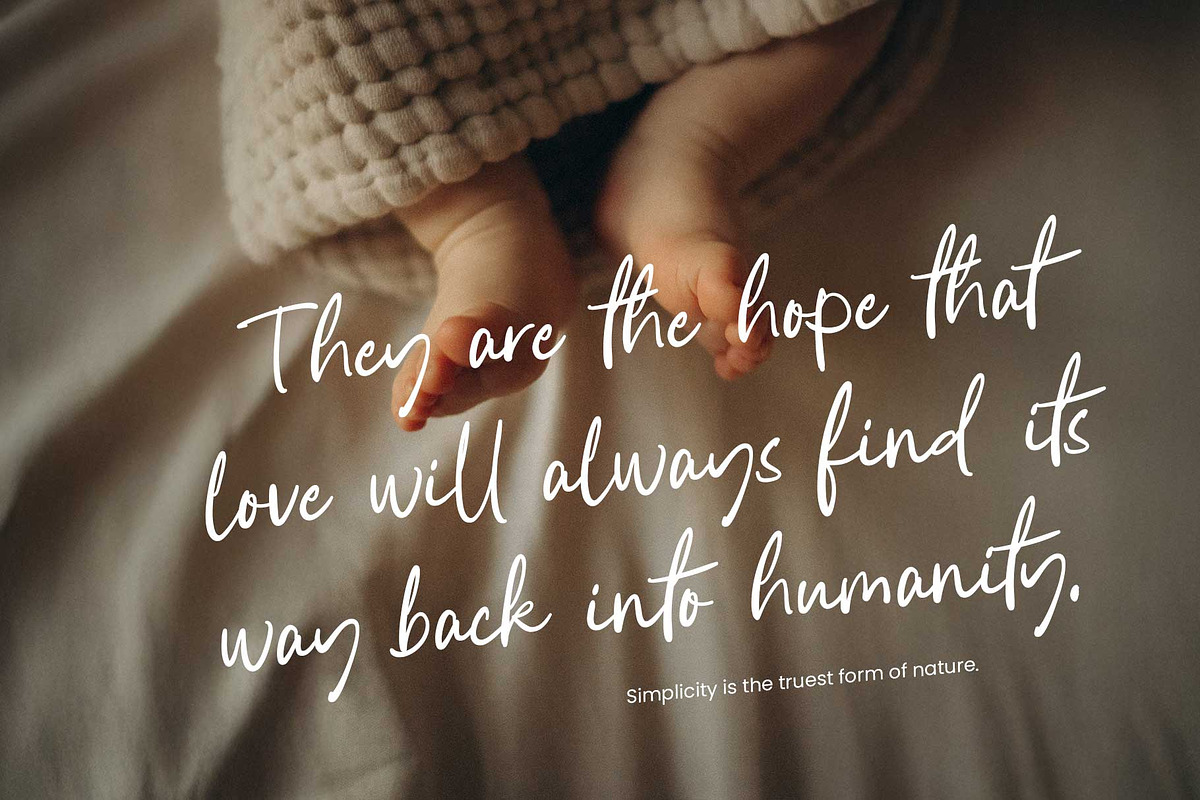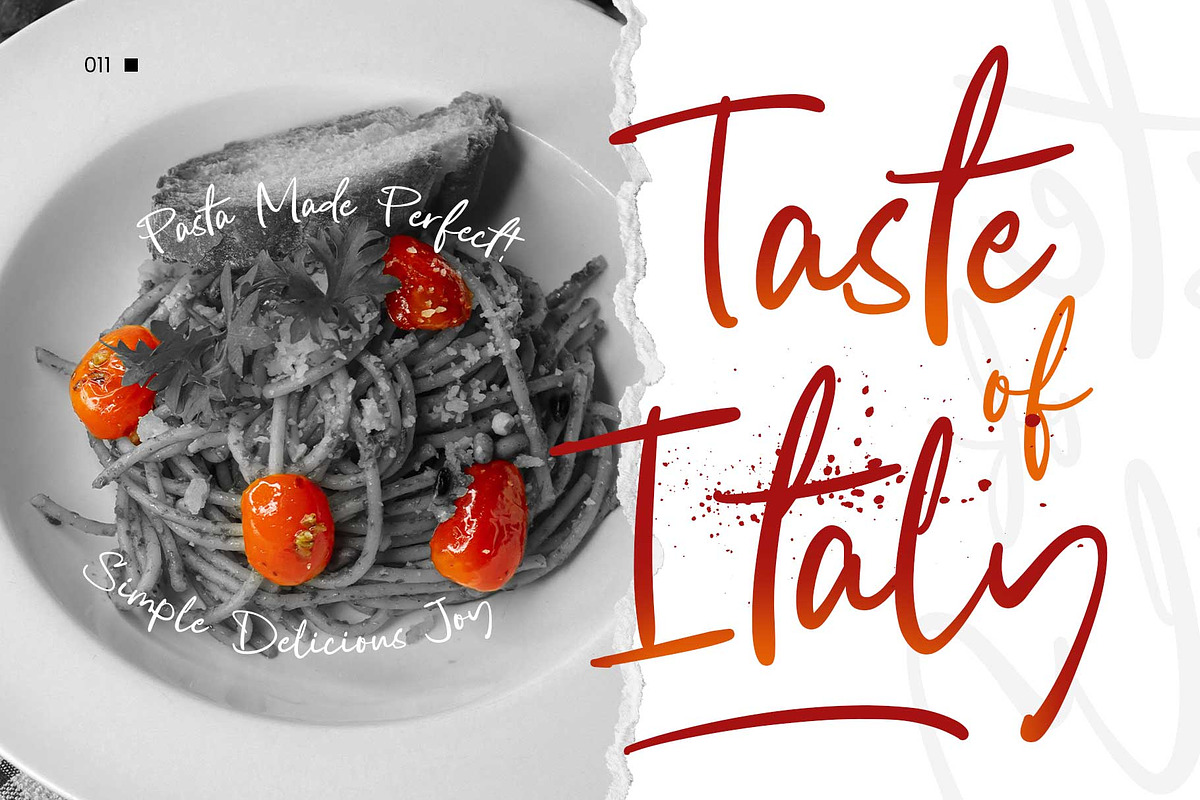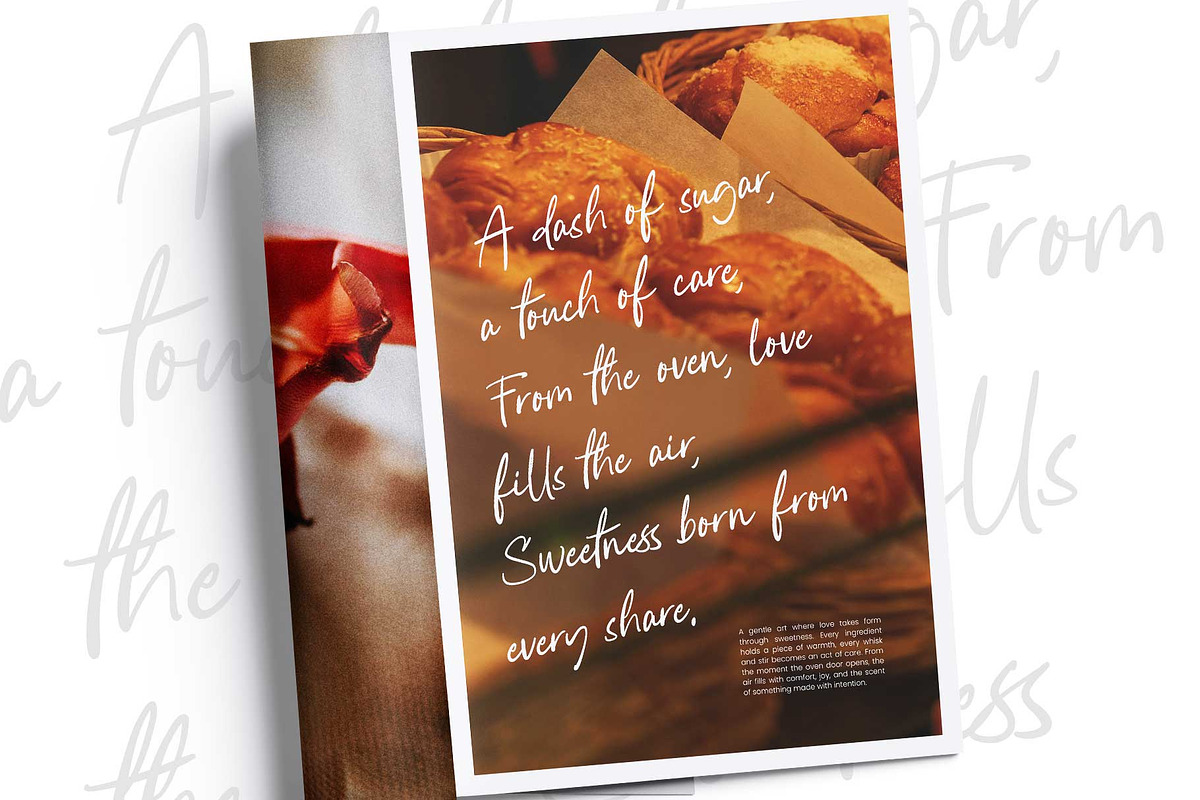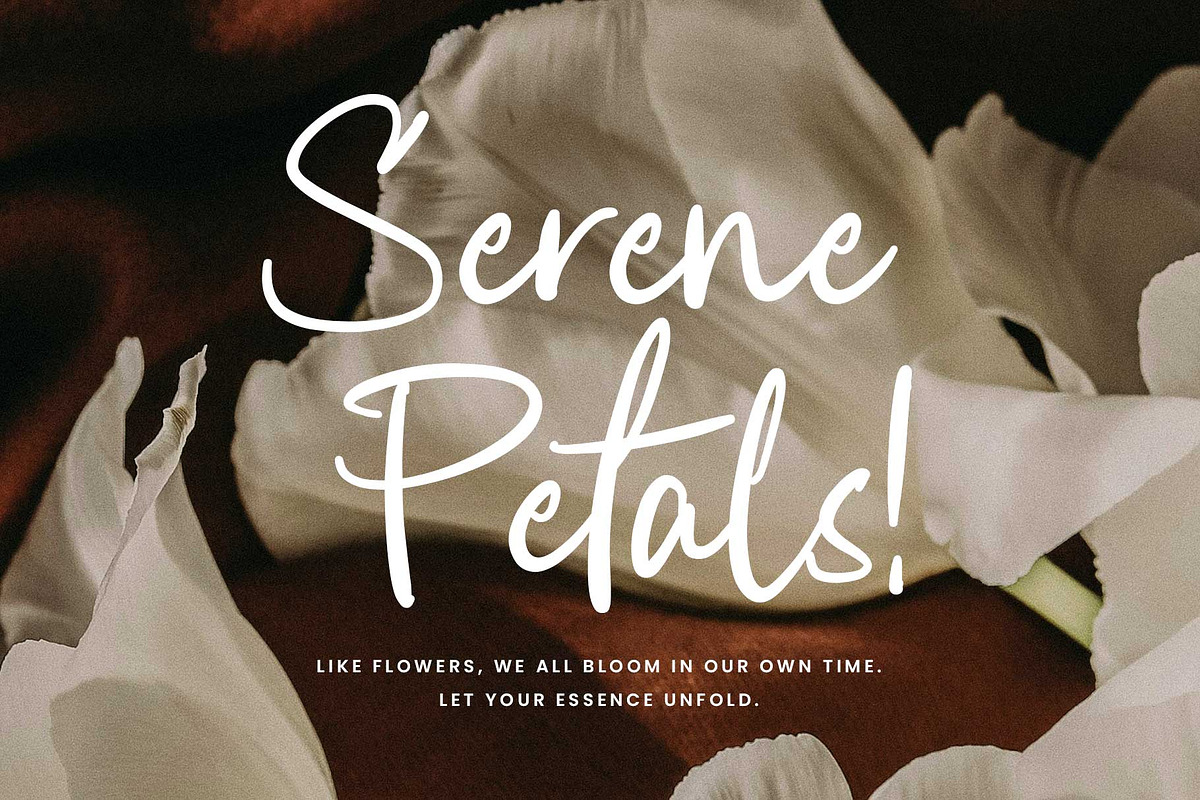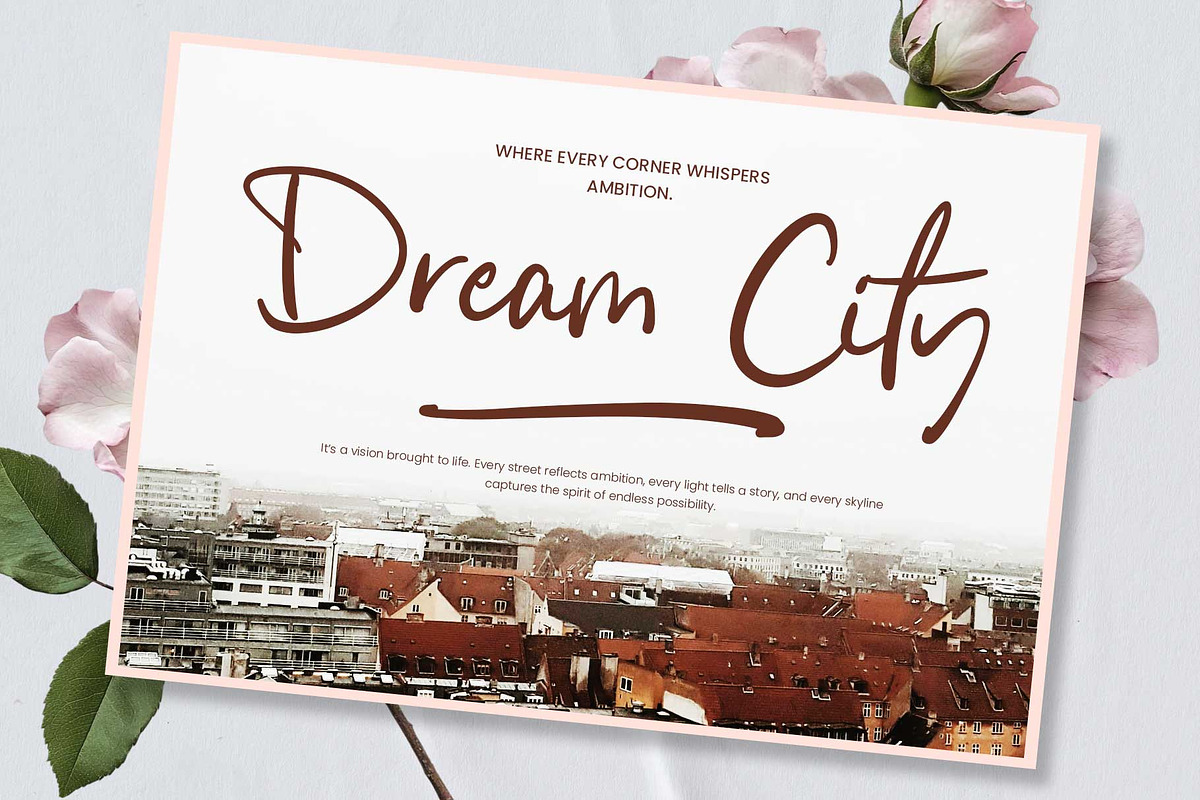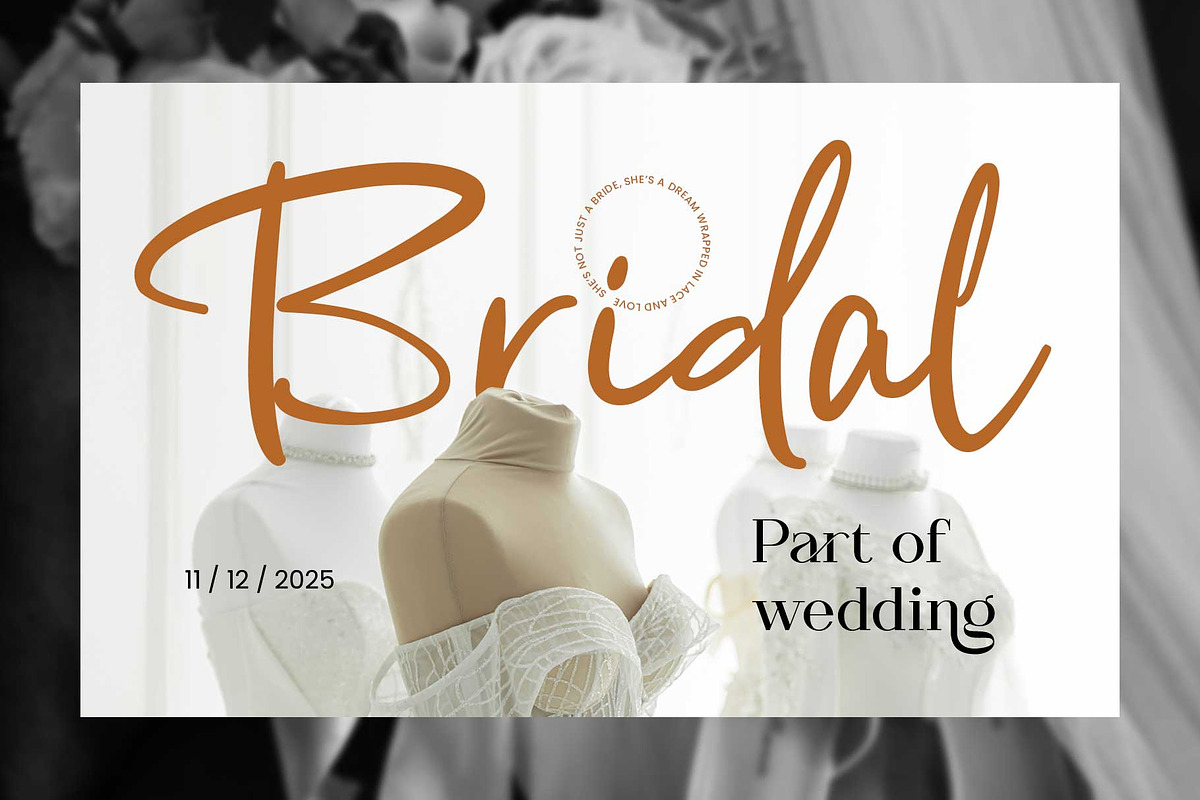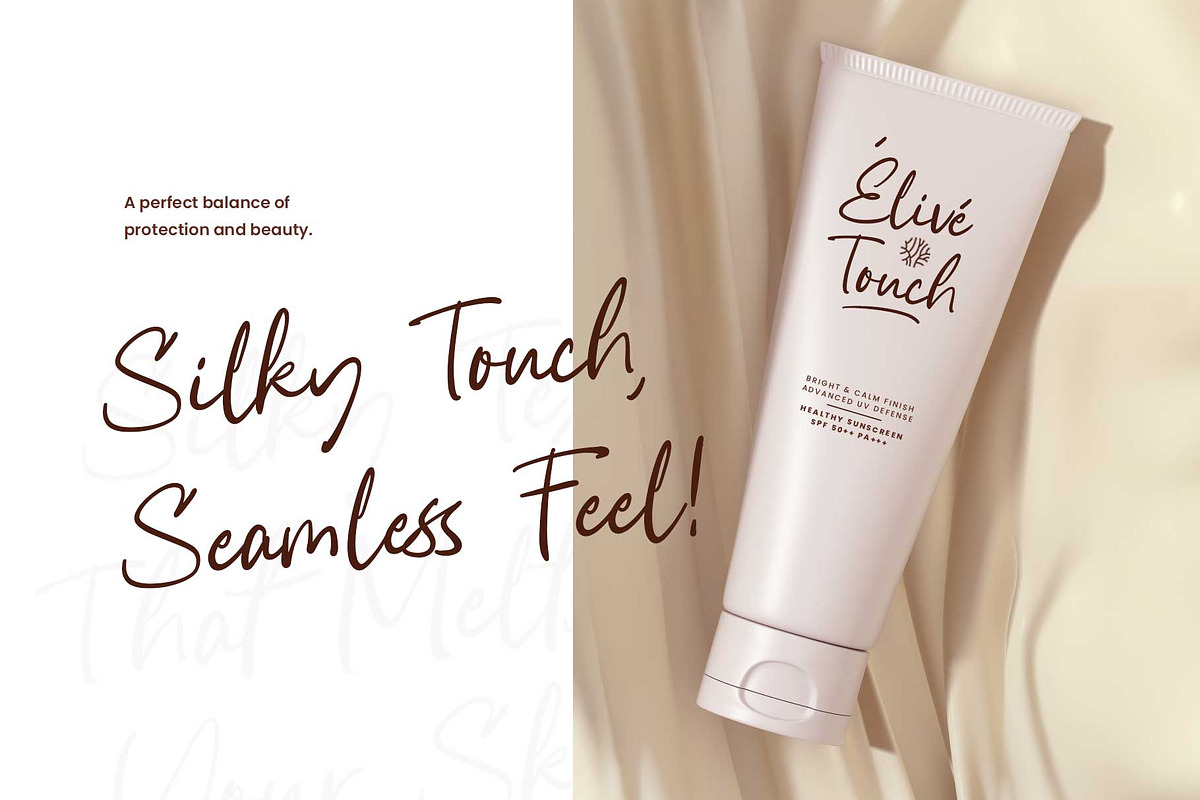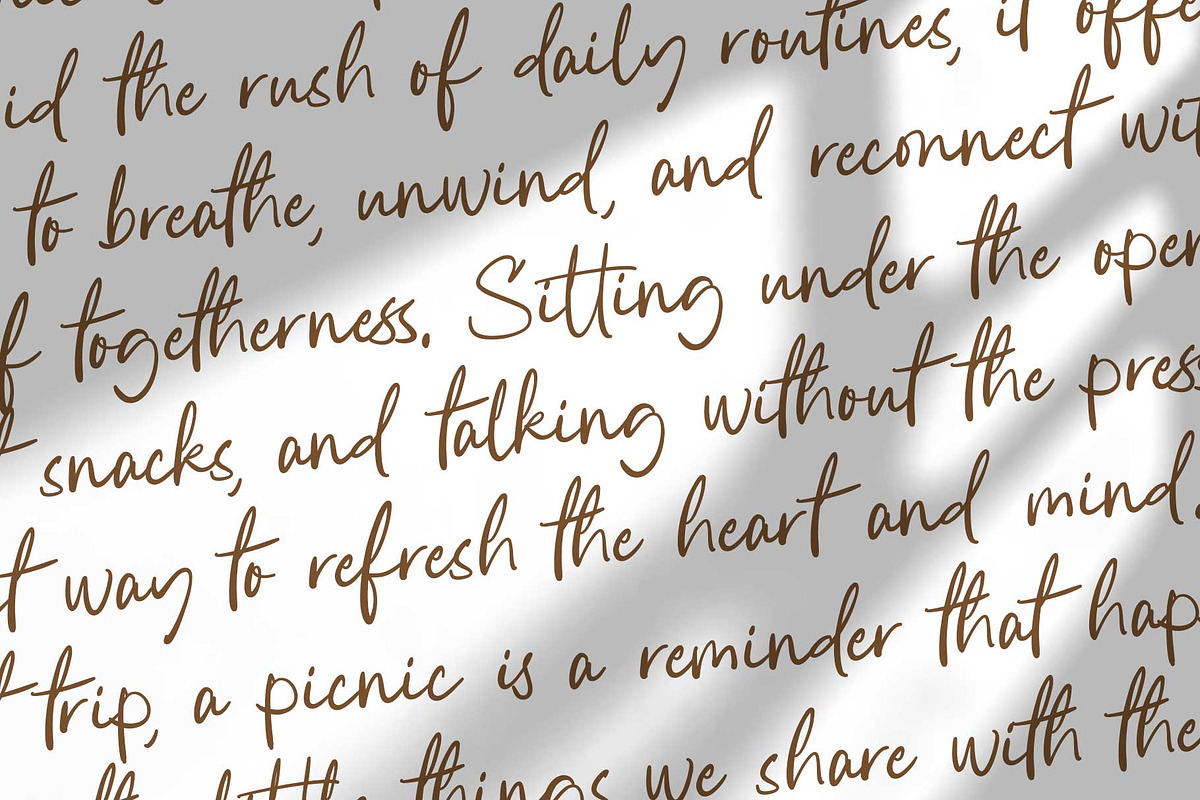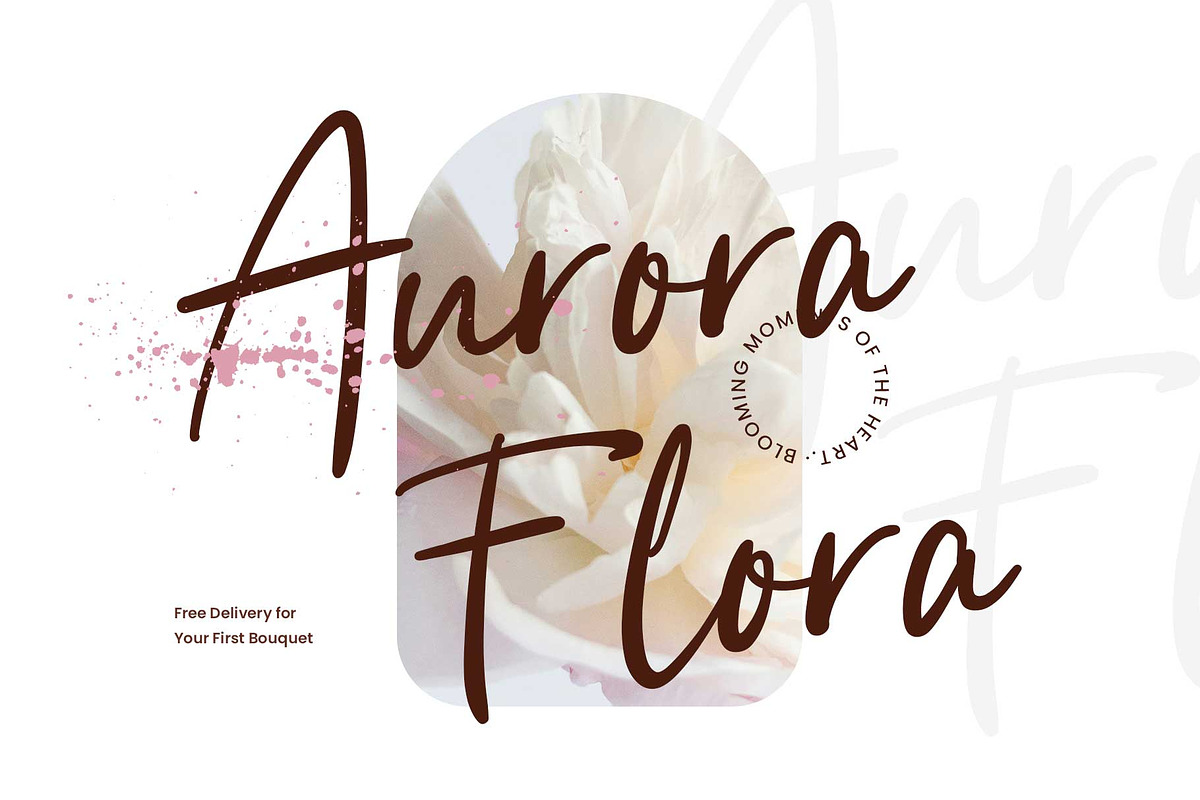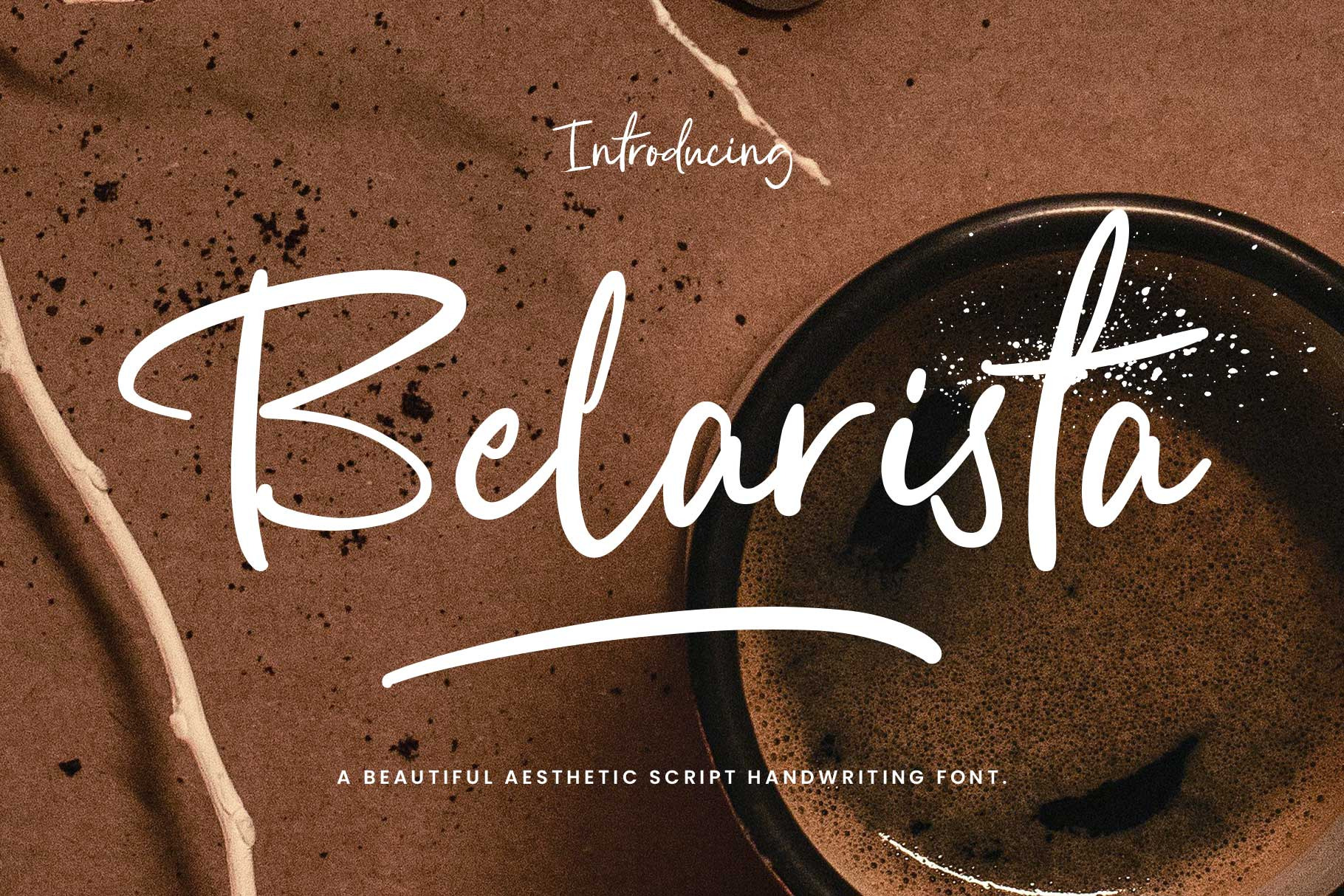
Casual Handwriting Font - Belarista
Belarista is a casual handwriting font—a blend of cute handwritten style and signature elegance, crafted with joy to bring a cheerful yet sophisticated touch to your typography.
This font carries a natural handwritten feel and is equipped with ligatures, stylistic alternates, and swashes to elevate your designs, making them stand out with charm and playfulness.
Perfect for headlines, books, posters, cards, weddings, invitations, packaging, fashion, cosmetics, promotional campaigns, motion graphics, quotes, and much more.
- Stylistic alternates